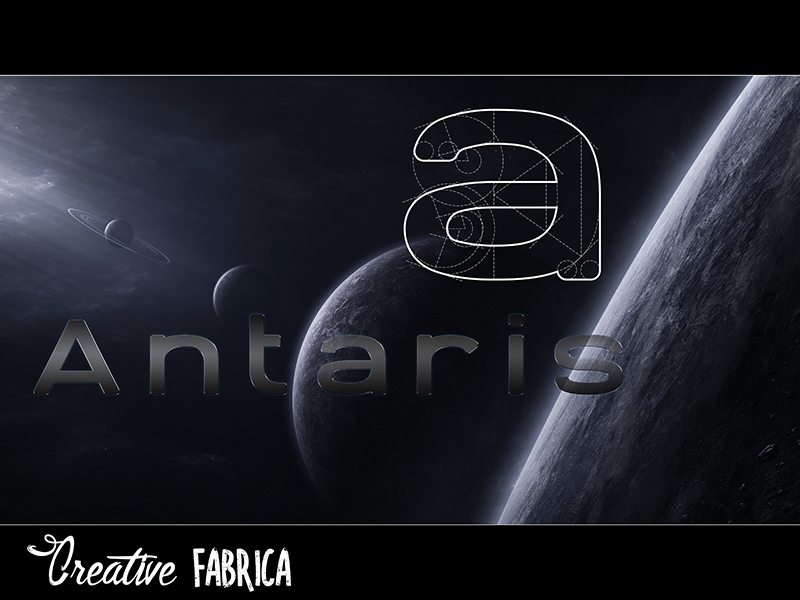
Font name: | Antaris CF |
Author: | Dag@bert |
Antaris is a strong and well constructed sans serif font, good readable in smaller sizes and useable for displays as well. This version is free for private use. The full version can be purchased here: https://www.creativefabrica.com/product/antaris/ Antaris Stencil can be found here: http://dagohbert.deviantart.com/art/Antaris-Stencil-659672934 Enjoy ! Thanks to Alpha-Element for his amazing background image: http://alpha-element.deviantart.com/art/Ascension-381745259 |